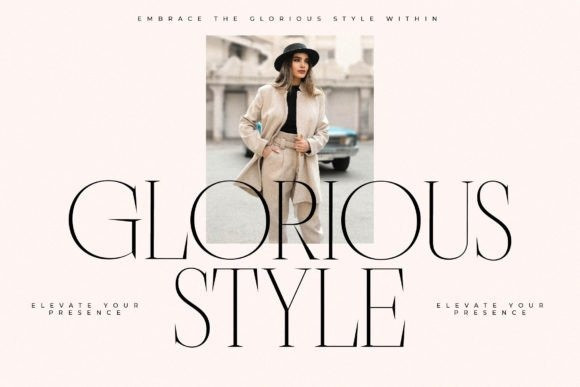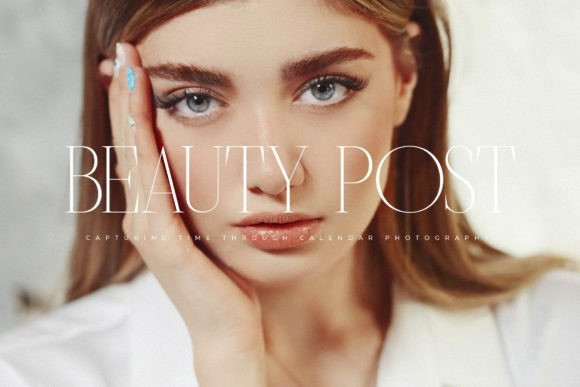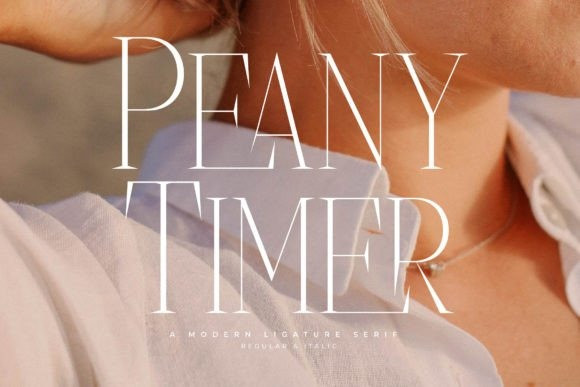
Peany Timer Font
Peany Timer Font is a modern and classic typeface that has its own unique style and modern look. This typeface is perfect for an elegant & luxurious logo, book or movie title design, fashion brand, magazine, clothes, lettering, quotes, and so much more.